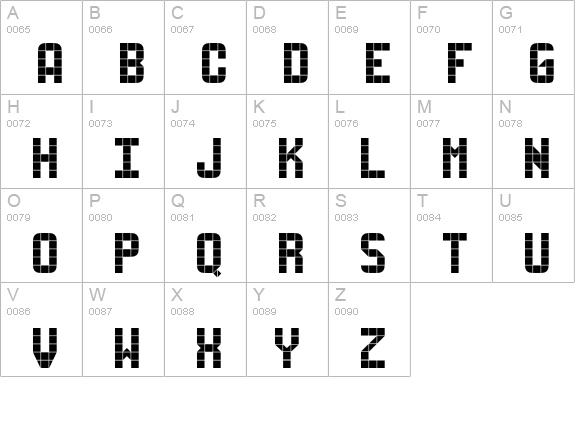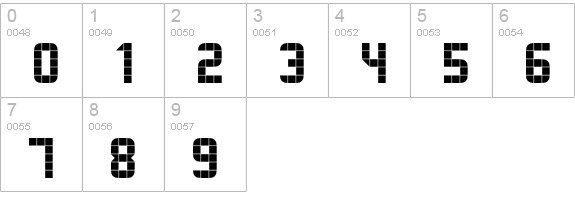
FUSELAGENORMAL Font Details
FUSELAGENORMAL font is a sleek and modern typeface that exudes sophistication and versatility. With its clean lines and balanced proportions, this font is perfect for a wide range of design projects, from branding to editorial work. The FUSELAGENORMAL font offers a contemporary and elegant aesthetic that will elevate any design it is used in. What makes FUSELAGENORMAL font even more appealing is that it is available for free download at FontsMarket.com. This means that you can easily access this high-quality font to enhance your creative projects without any cost involved. Don't miss out on the opportunity to add FUSELAGENORMAL font to your collection and elevate your designs with its timeless appeal.